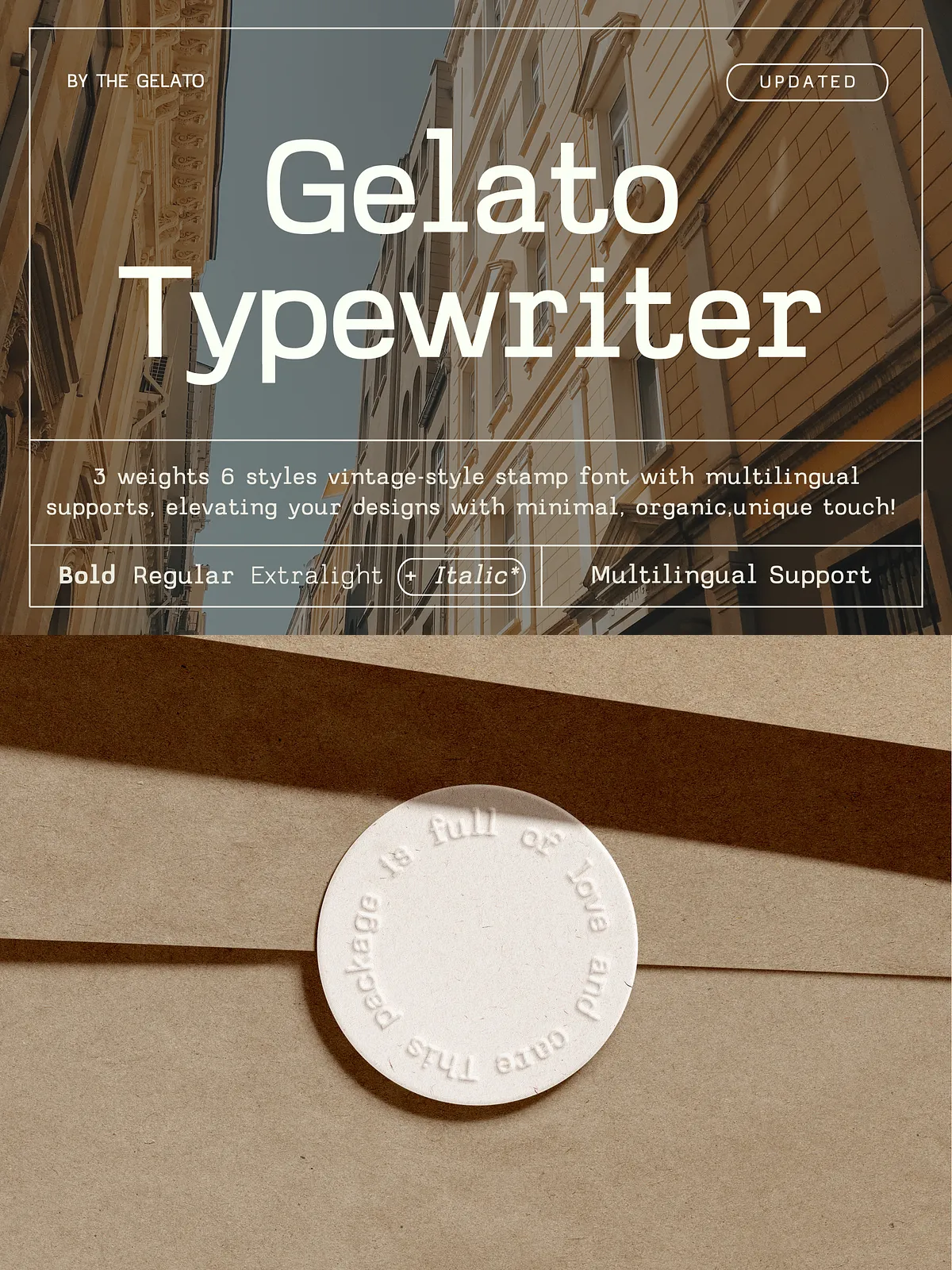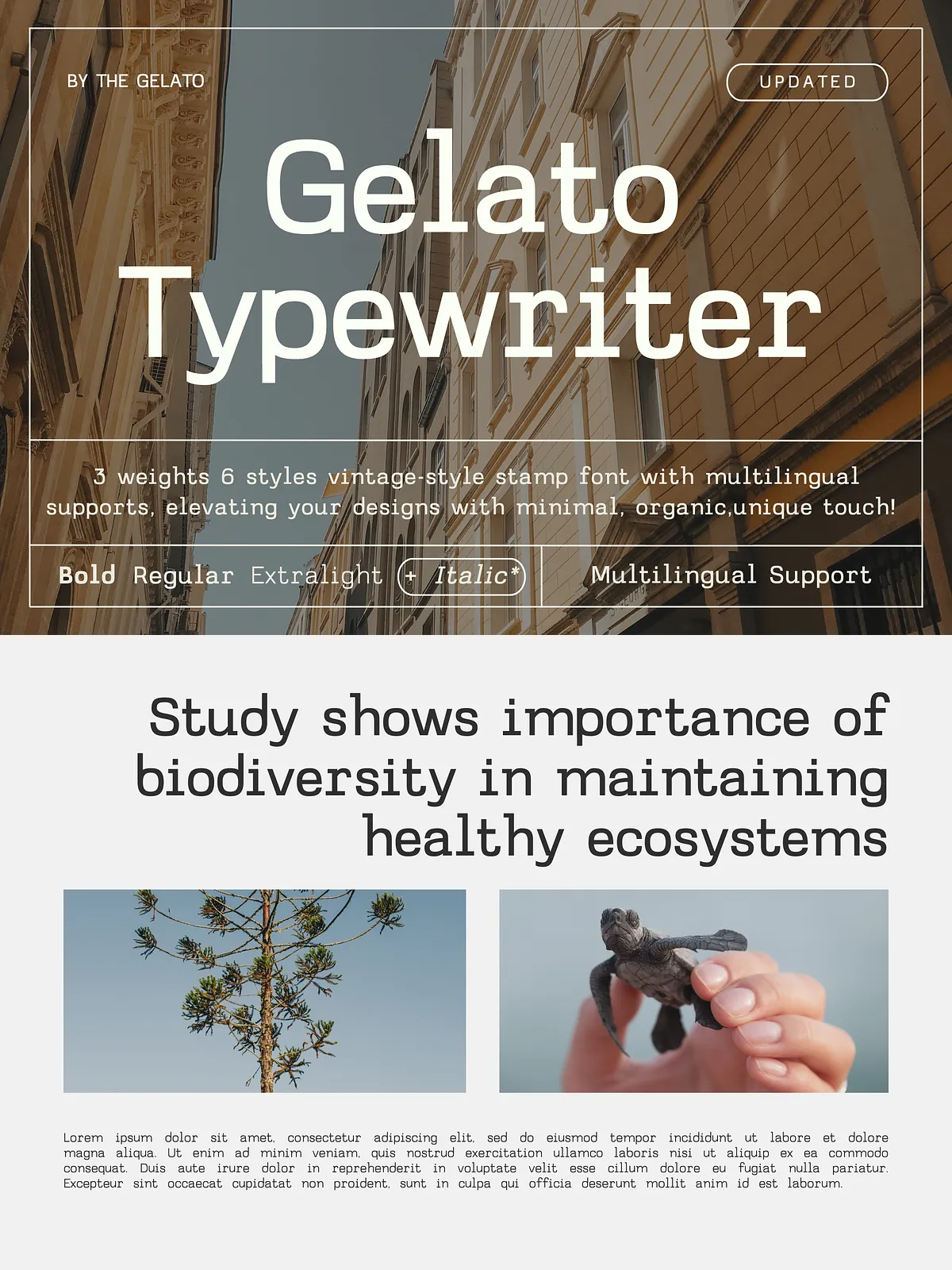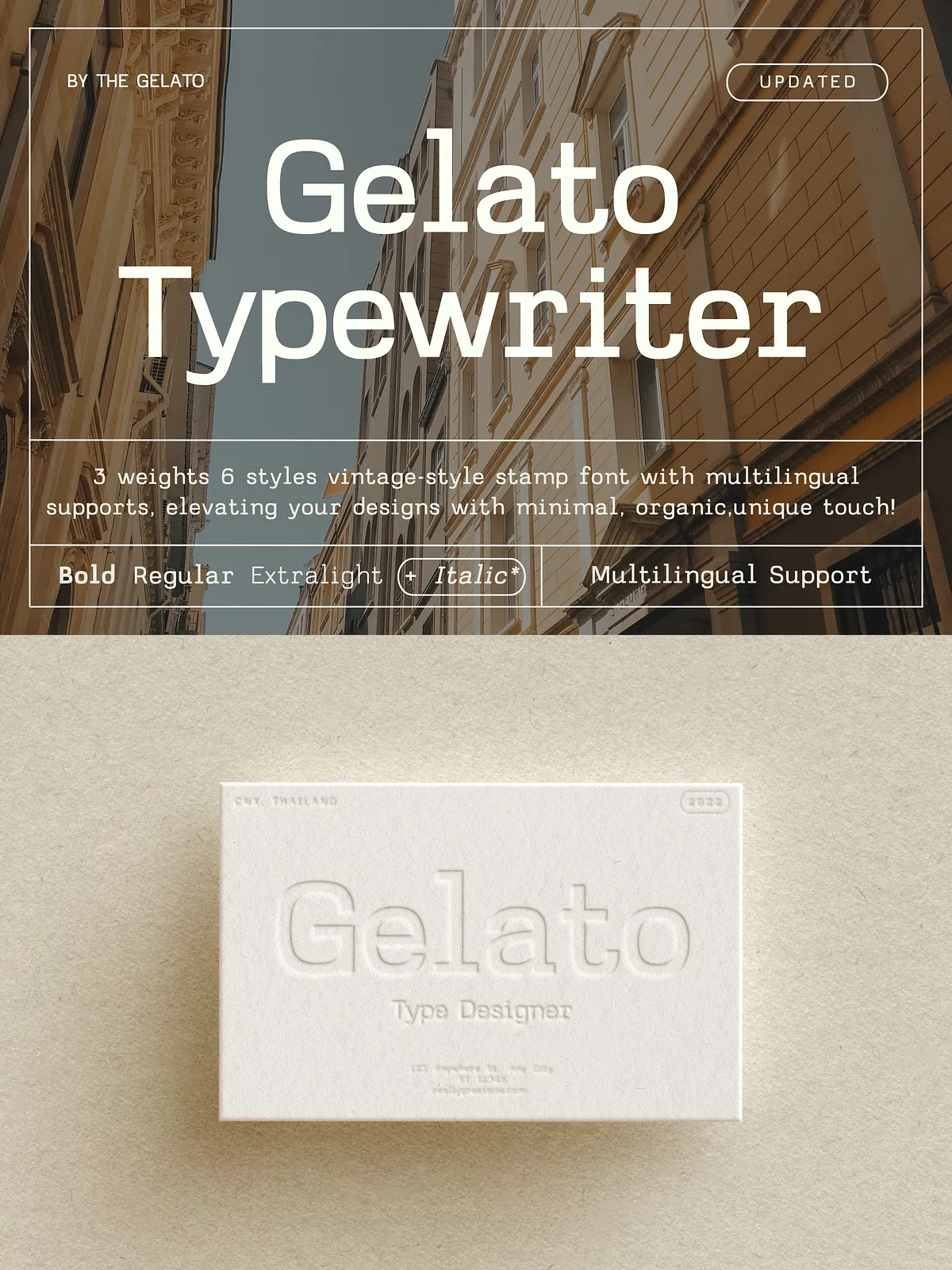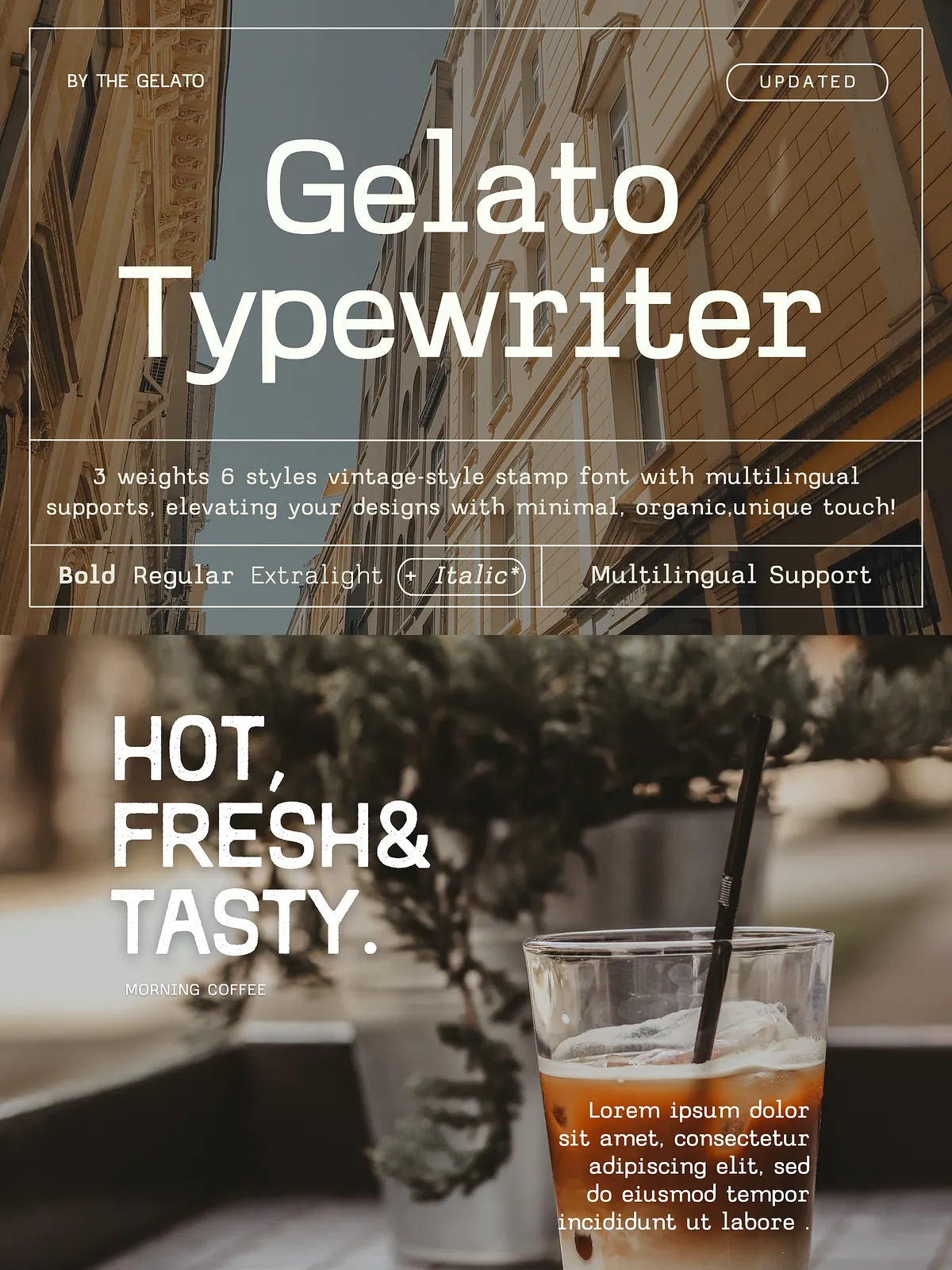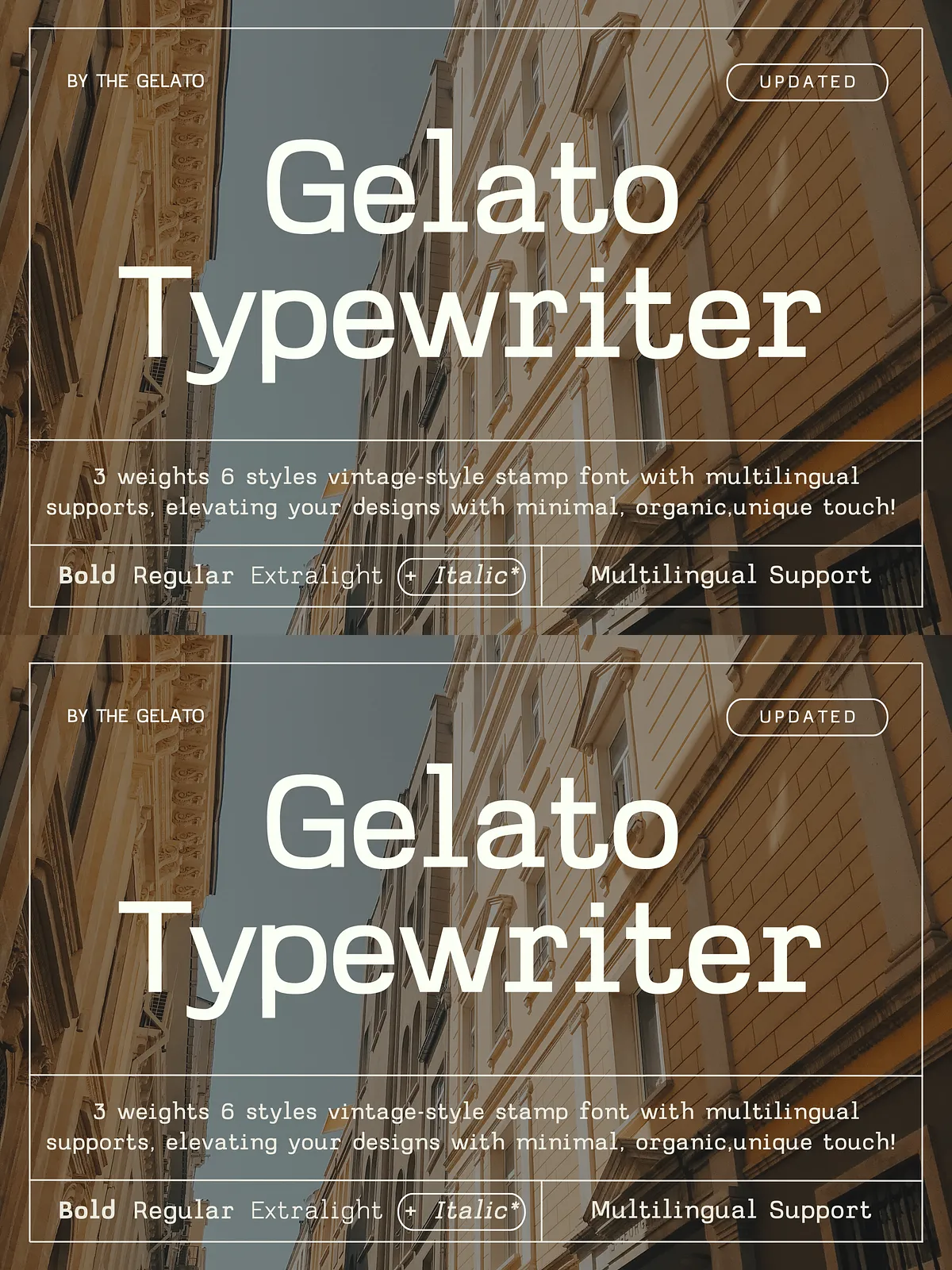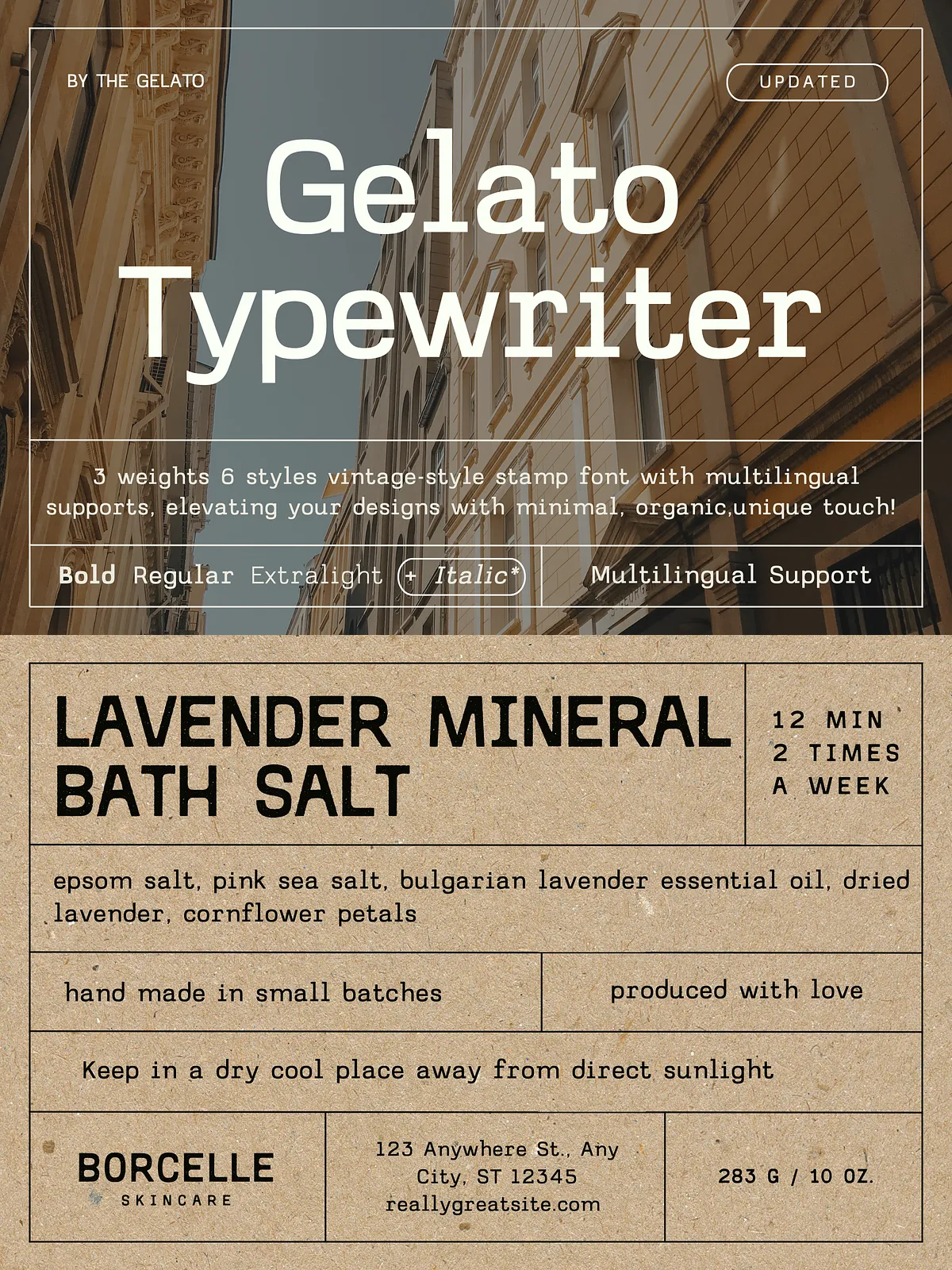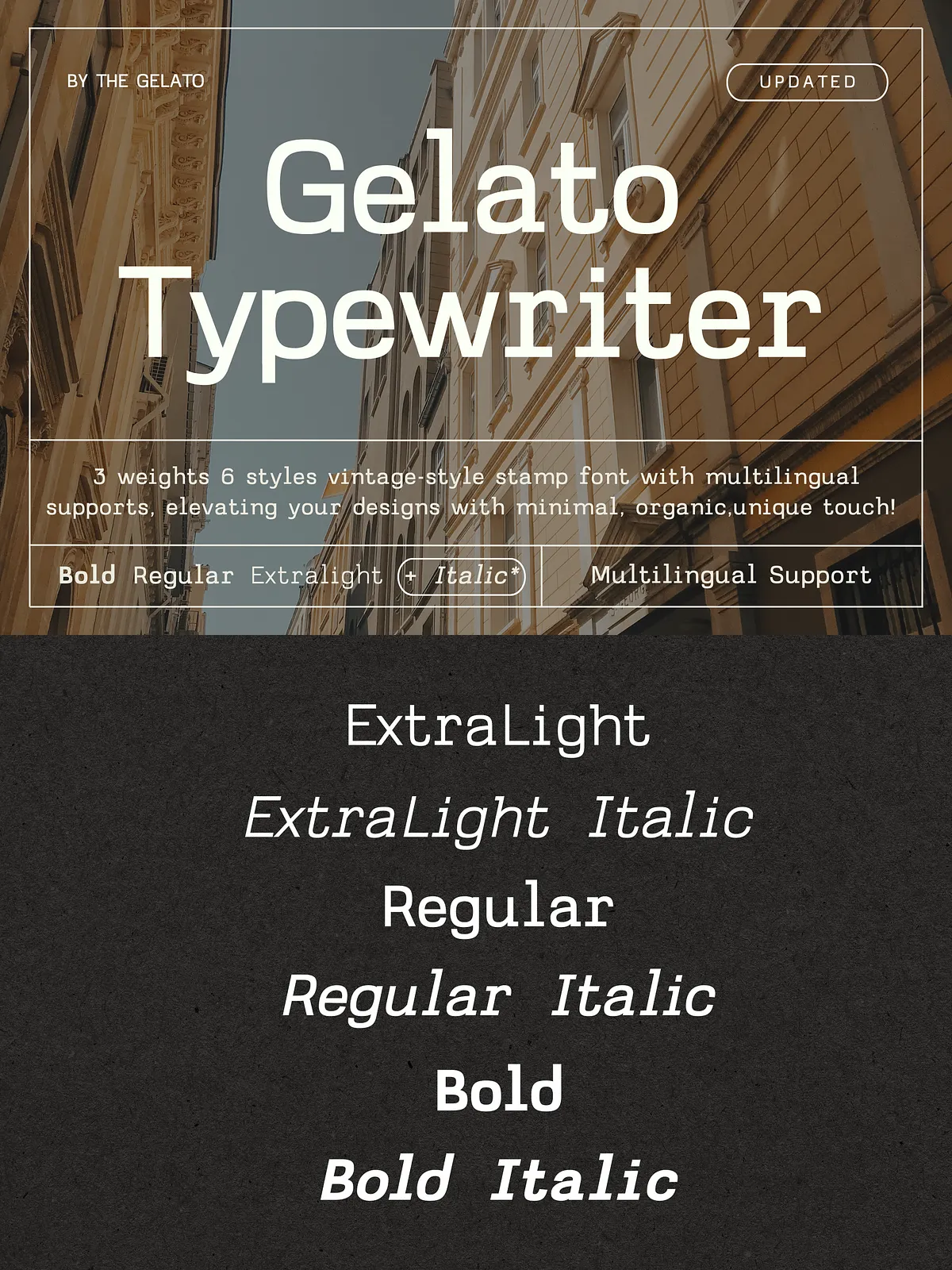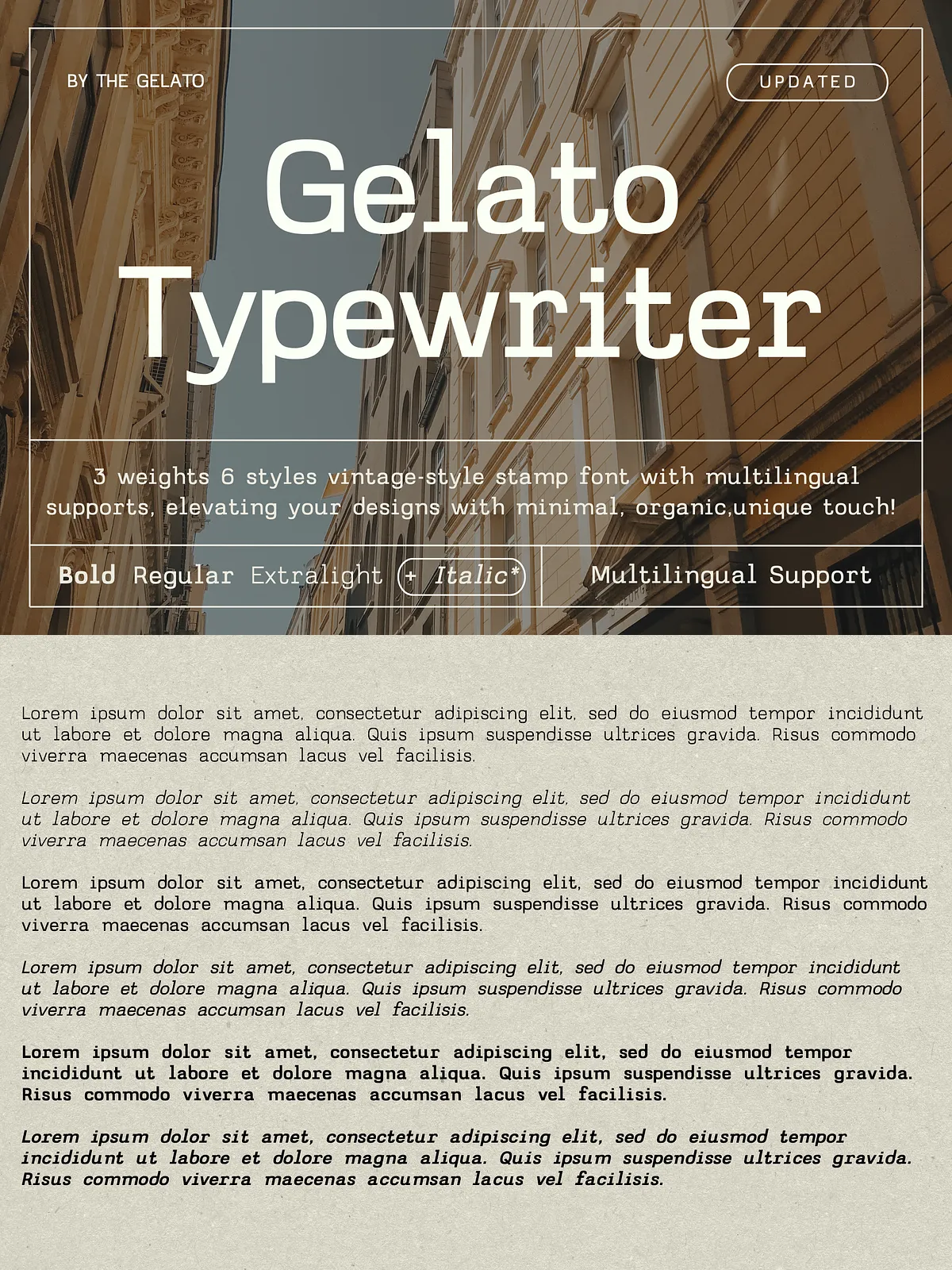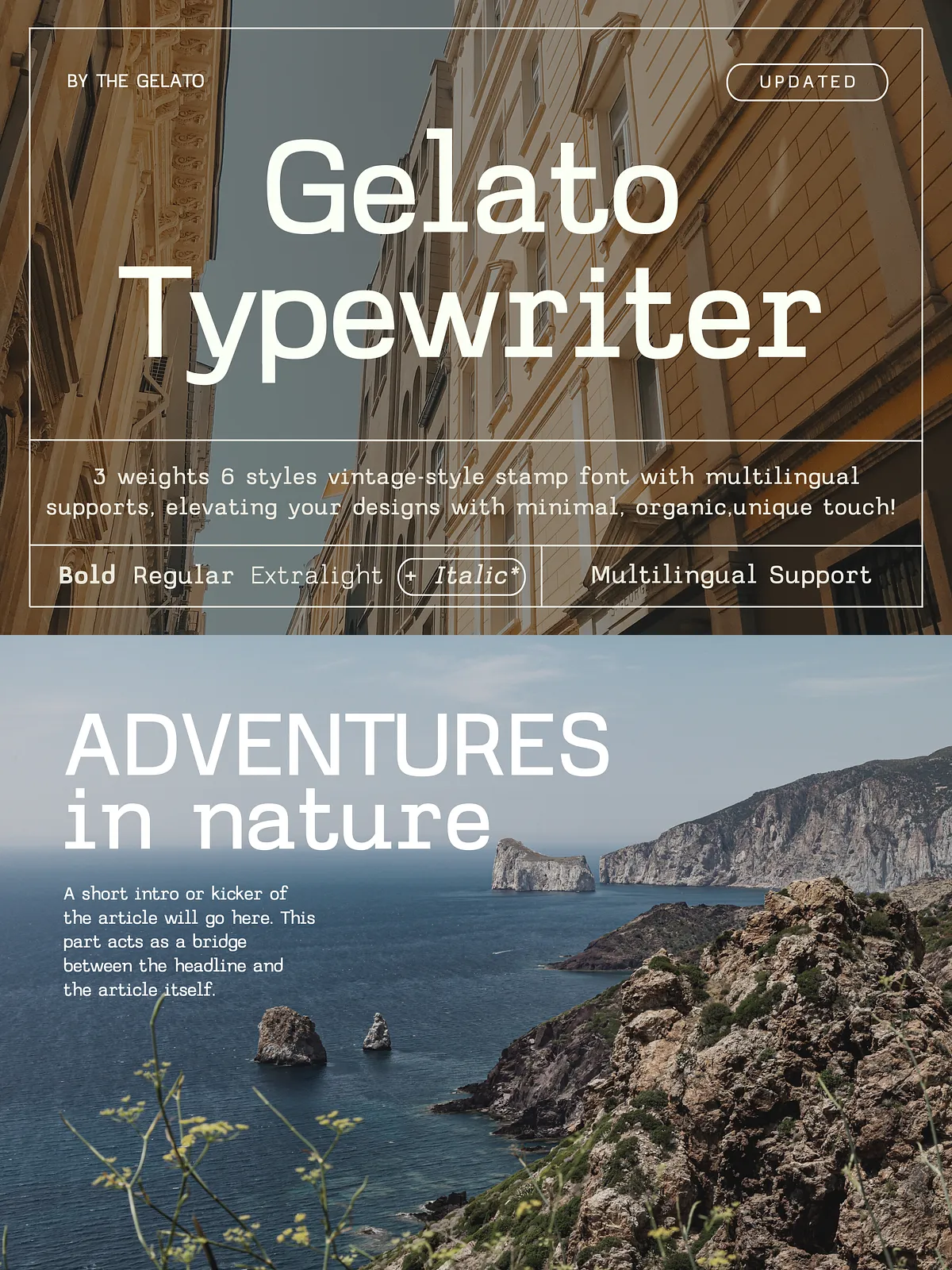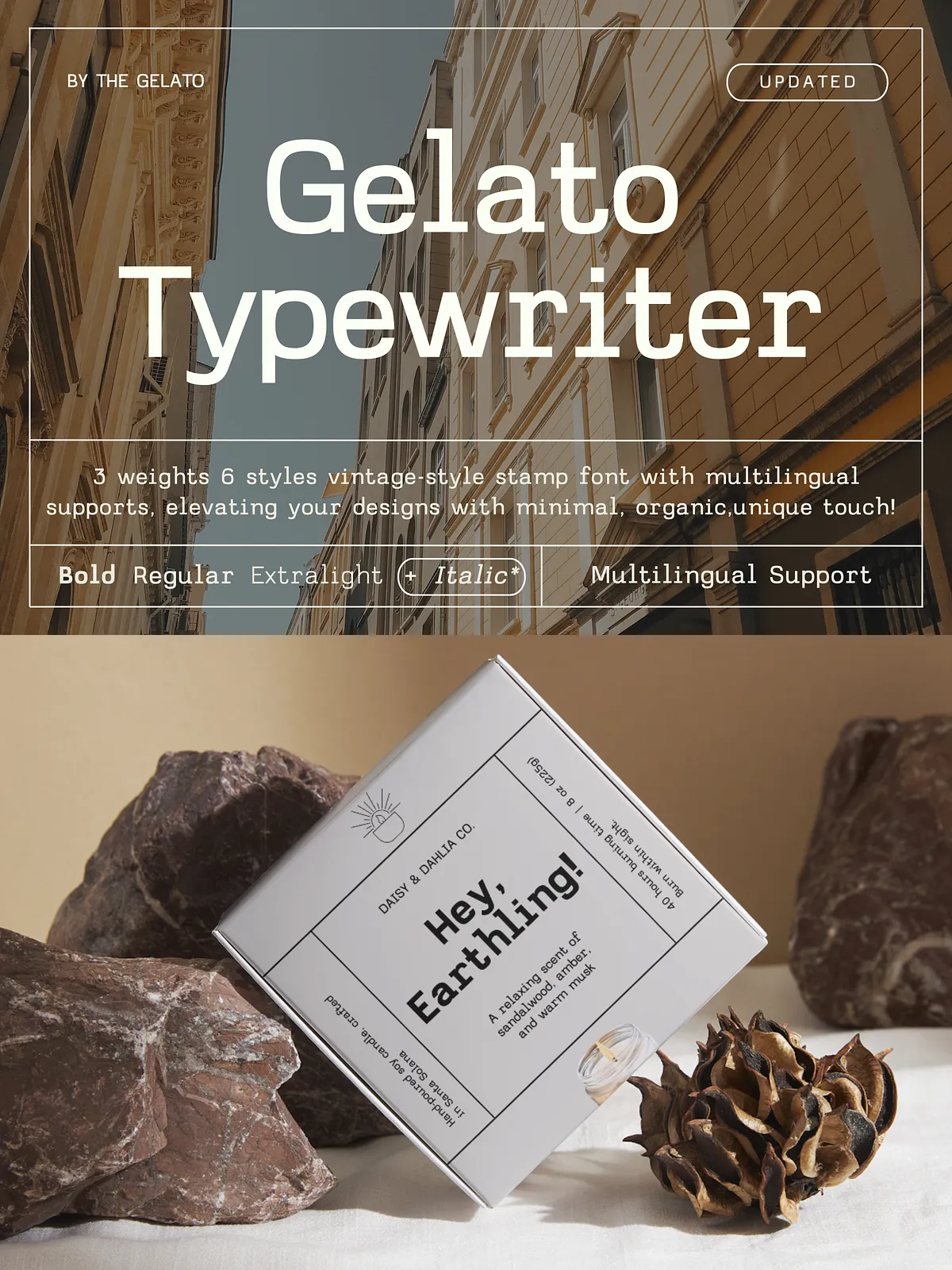
Gelato Typewriter Vintage Stamp Font
Meet Gelato Typewriter — a meticulously crafted vintage-style stamp font that brings warmth, character, and soul to every project. Inspired by the subtle imperfections of physical stamps and typewriter imprints, this font captures the organic rhythm of handcrafted design in a digital format. With three weights and six unique styles, it’s not just a font — it’s a design partner that adapts to your creative vision with effortless grace.
Whether you’re drawing from retro nostalgia or building a modern minimalist brand, Gelato Typewriter delivers a clean, tactile presence that feels intentionally real. No overly polished digital sterility. Just authentic texture, rhythmic variation, and a quiet confidence in every letter.
Broad Range, Infinite Possibilities — 3 Weights, 6 Styles
Designed for maximum flexibility, Gelato Typewriter offers a complete typographic toolkit across six distinct variations:
• Regular — Clean and timeless, perfect for body text, titles, and editorial layouts.
• Bold — Makes a powerful statement in headers, logos, and social media graphics.
• Extra Light — Delicate and refined for subtle accents, invitations, and premium packaging.
• Regular Italic — Adds elegance and motion for quotes, featured text, and visual storytelling.
• Bold Italic — A dynamic choice for high-impact visuals, banners, and branding.
• Extra Light Italic — Delicate and expressive, ideal for fine details and modern aesthetics.
This range ensures that every project — from a sleek business card to a bold exhibition poster — can be elevated with the perfect balance of weight, tone, and style.
Multilingual Support for Global Projects
Designed with international projects in mind, Gelato Typewriter supports multiple languages, making it ideal for global brands, bilingual publications, and multicultural messaging. It delivers consistent character quality across Latin-based scripts, including accented letters for French, Spanish, German, Italian, Portuguese, and more — all with the same authentic feel.
Diverse Use Cases — Where Art Meets Function
Gelato Typewriter thrives in spaces where personality and clarity collide. Here’s where it shines:
• Packaging & Labels
Perfect for artisanal products, cosmetics, food branding, and drink labels. Its stamp-like texture suggests craftsmanship and care — exactly what premium packaging demands.
• Branding & Logo Design
Use it for logos that tell a story — minimal yet meaningful. Whether for food trucks, boutiques, studios, or startups, it gives brands an identity that feels real, not manufactured.
• Editorial & Magazine Layouts
Bring life to article headers, pull quotes, and feature titles. Its organic spacing and subtle variation make reading a visual experience.
• Invitations & Stationery
Infuse wedding invitations, birthday cards, and thank-you notes with warmth and charm. The vintage touch feels nostalgic without being dated.
• Banners, Posters & Social Media Graphics
Stand out on Instagram, Pinterest, and Facebook with visuals that command attention — but with subtlety, not noise.
• 3 Weights: Extra Light, Regular, Bold — tailored for different needs and emotional tones.
• 6 Styles: Regular, Bold, Extra Light, and their italic variants — total flexibility.